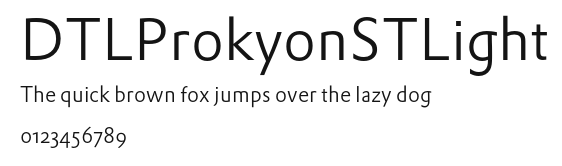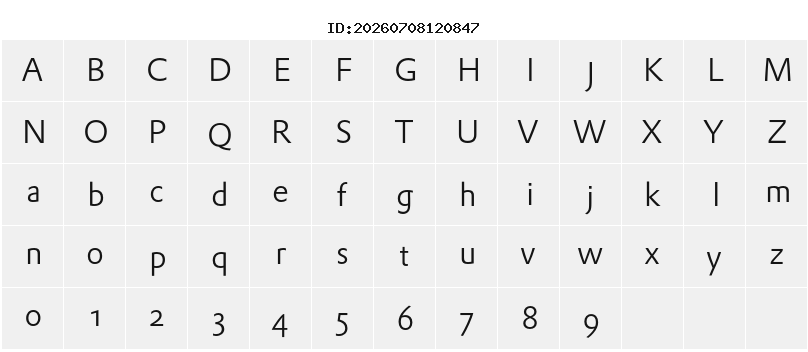
About DTLProkyonSTLight.otf
DTLProkyonSTLight.otf is a modern, elegant sans-serif font designed for ultimate readability and visual harmony. Perfect for branding, headlines, web design, and print materials.